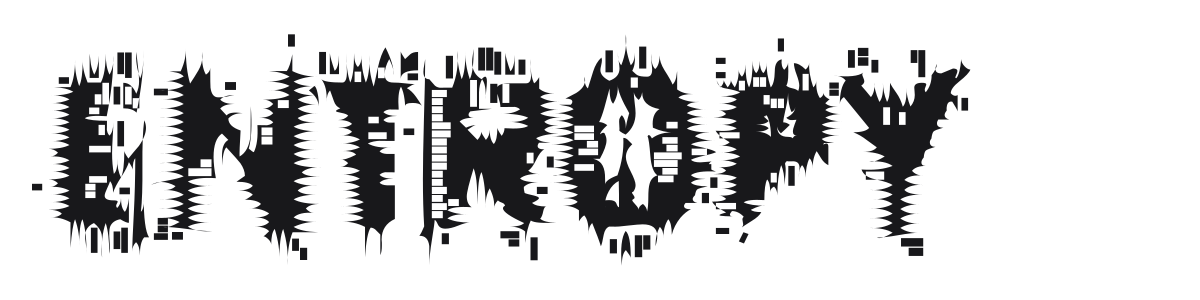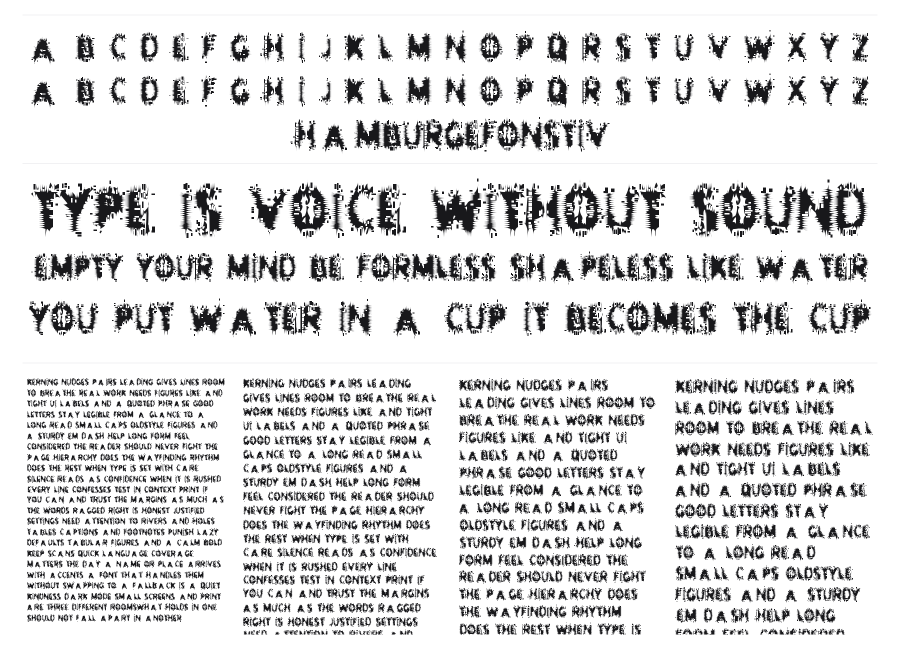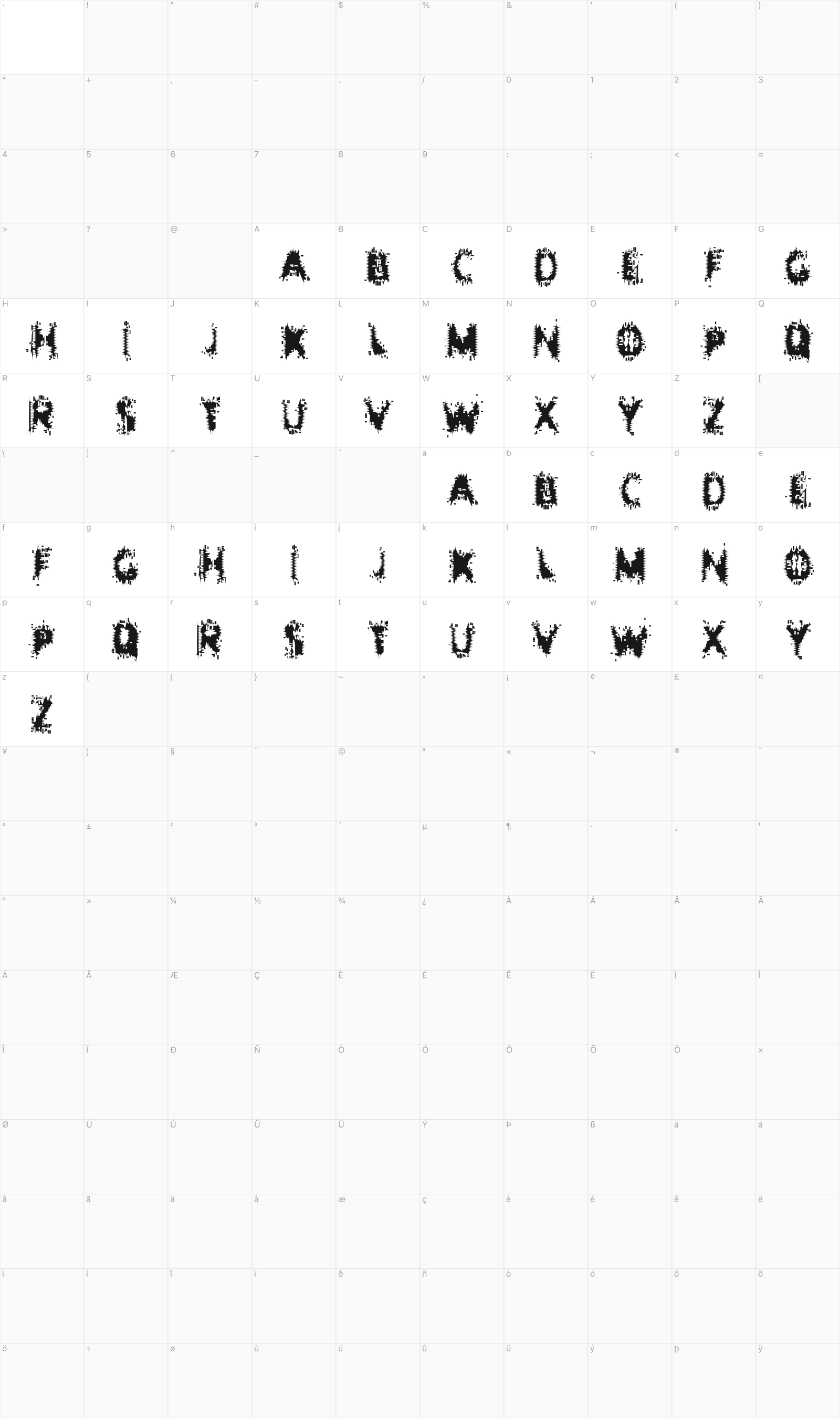
Entropy
Entropy is a heavily distressed display font from Rob Dobi's toxic type collection, where every character is consumed by jagged erosion and noise. The underlying bold structure is almost entirely obscured by fragmentation, giving the impression of corrupted data or decayed print. Best used large, where the chaos reads as texture rather than illegibility.